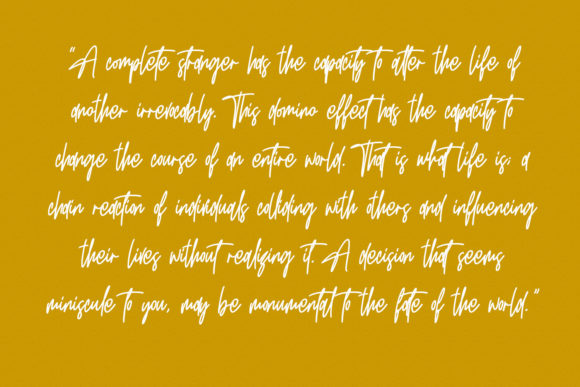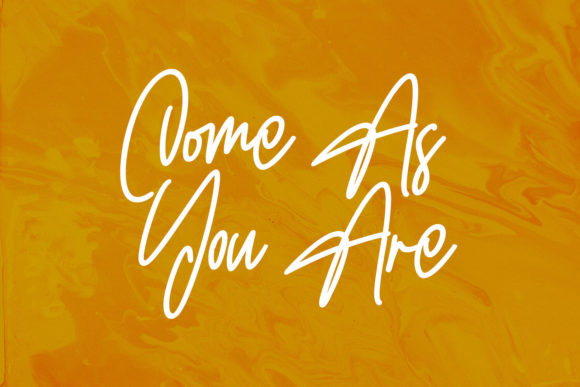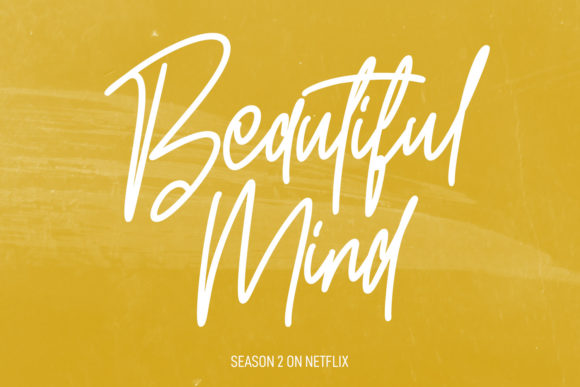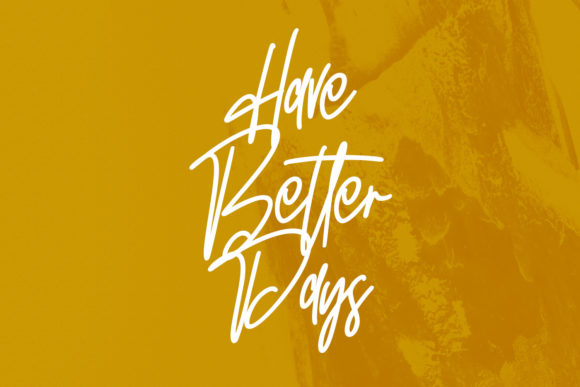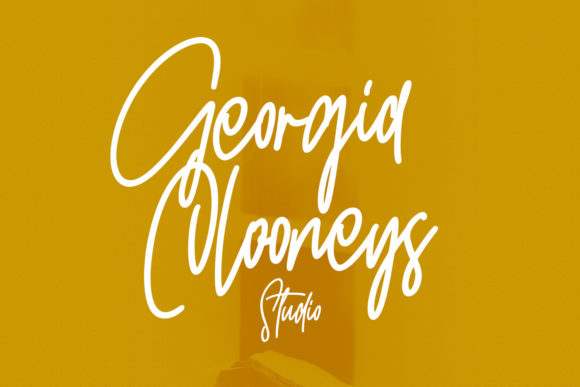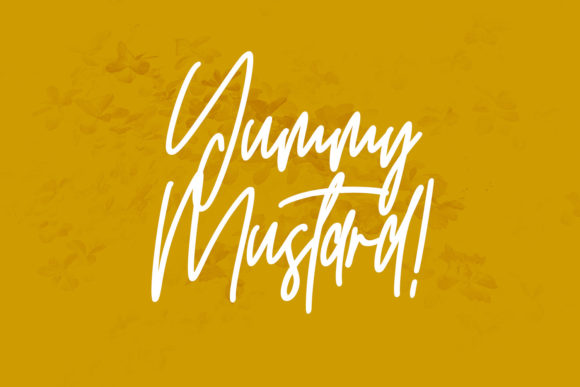
Introduction to Entwisted Font Font
Fonts play a crucial role in design, and the Entwisted Font font is a typeface that brings both character and versatility to any project. Whether you’re working on a branding project, a website, or a print design, the Entwisted Font font offers a unique style that can elevate your work.
Entwisted is a unique, fancy and modern looking script font.
This font is imposing and features uniquely shaped letters, and as a result, it will easily match a wide range of creations that require a distinct touch .
Key Features of Entwisted Font Font
Why Choose Entwisted Font Font?
The Entwisted Font font is more than just a typeface – it’s a design tool that helps you communicate your message with style and clarity. Its unique character set and versatile design make it suitable for a wide range of applications, from elegant invitations to bold headlines.
With its carefully crafted letterforms and balanced proportions, the Entwisted Font font ensures readability and visual appeal across all mediums.
What makes Entwisted Font font special?
The Entwisted Font font stands out with its unique design, exceptional readability, and versatility across various design applications.